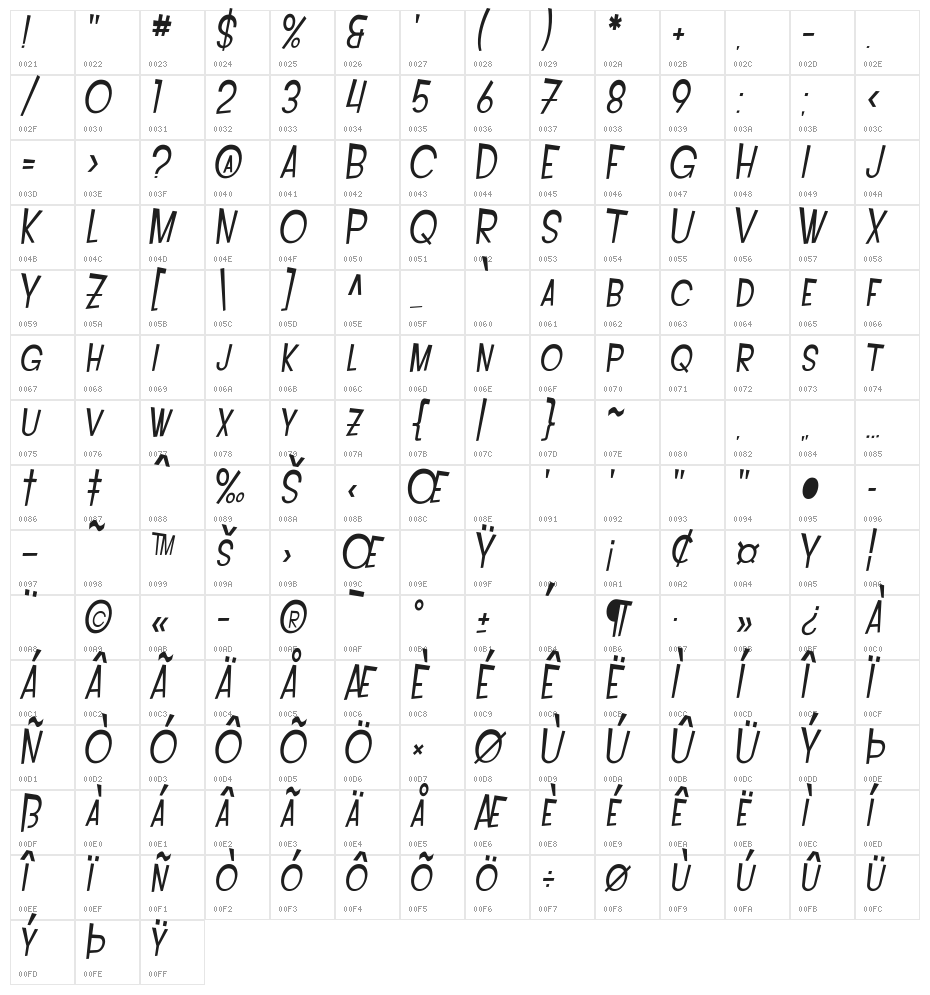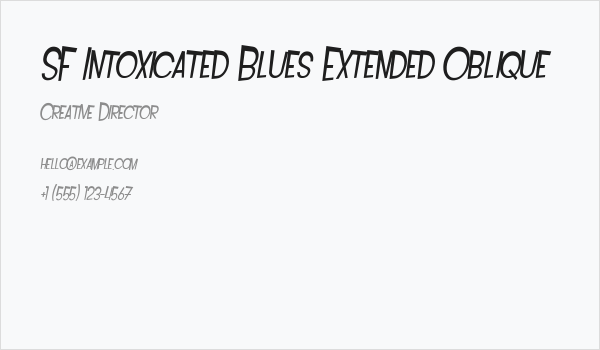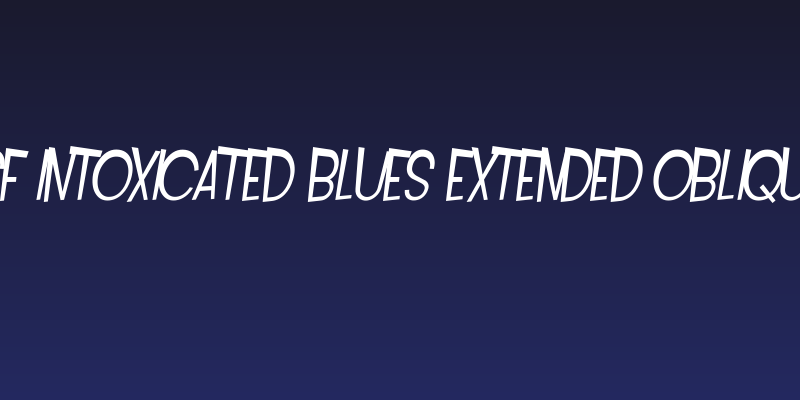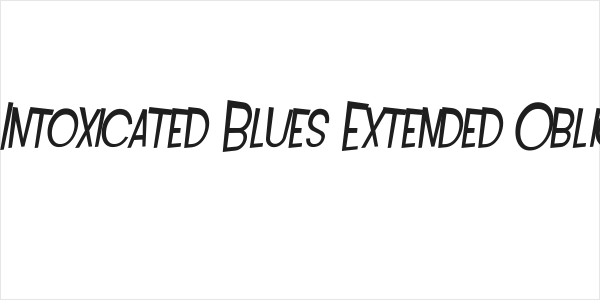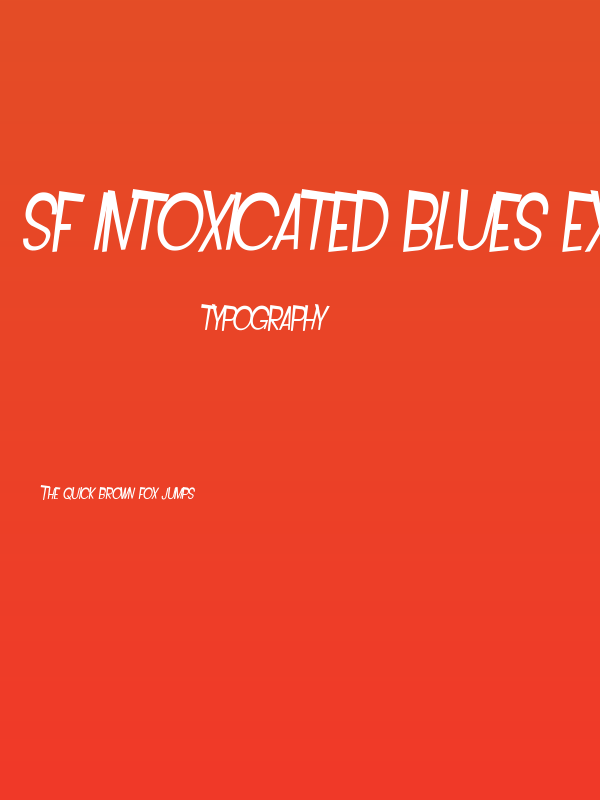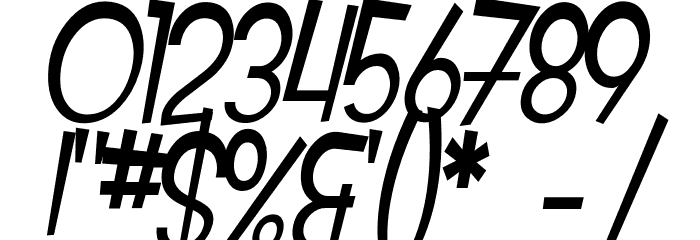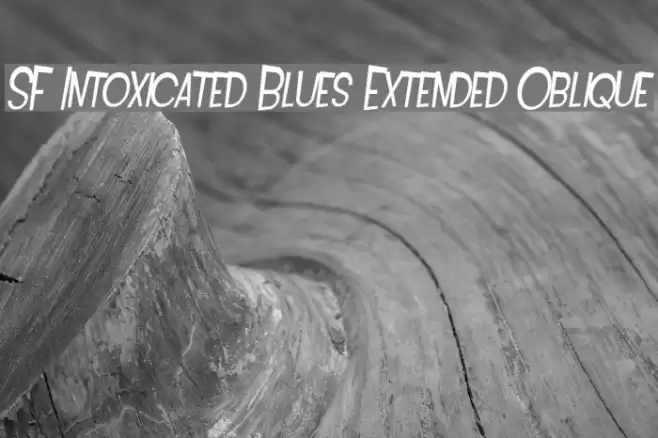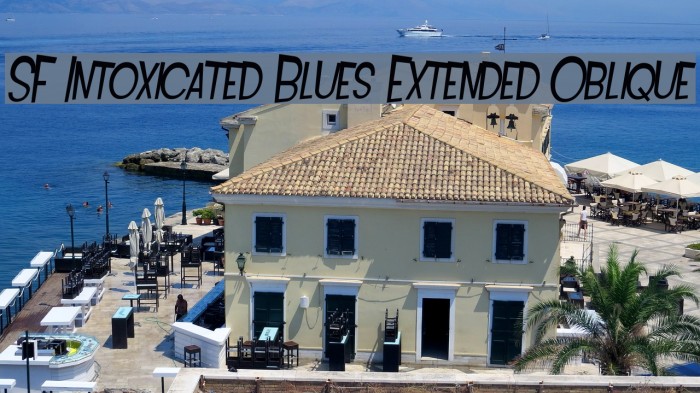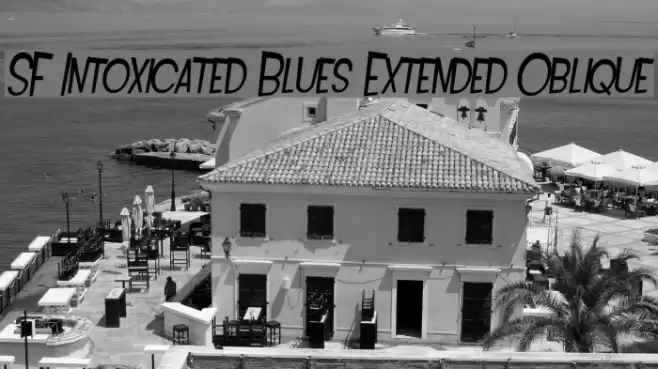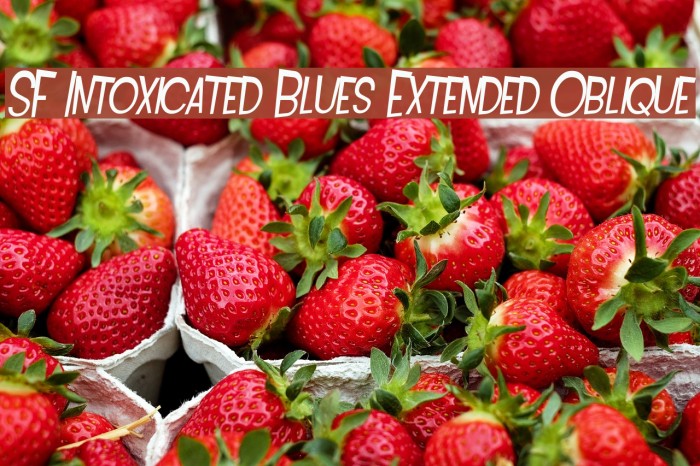
SF Intoxicated Blues Extended Oblique Font
SF Intoxicated Blues Extended Oblique Description
This font features a dynamic and energetic style with an oblique orientation, giving it a sense of motion and speed. The characters are elongated and slightly condensed, with sharp angles and a modern aesthetic. The uppercase and lowercase letters maintain a consistent slant, enhancing the font's sleek appearance. Numbers and special characters are designed to match the overall style, ensuring uniformity across all glyphs. The font's boldness and extended width make it suitable for impactful designs, while its unique flair adds a touch of creativity to any project.
| Proposed Projects | Ideal for sports branding, dynamic posters, modern advertisements, and edgy graphic designs. |